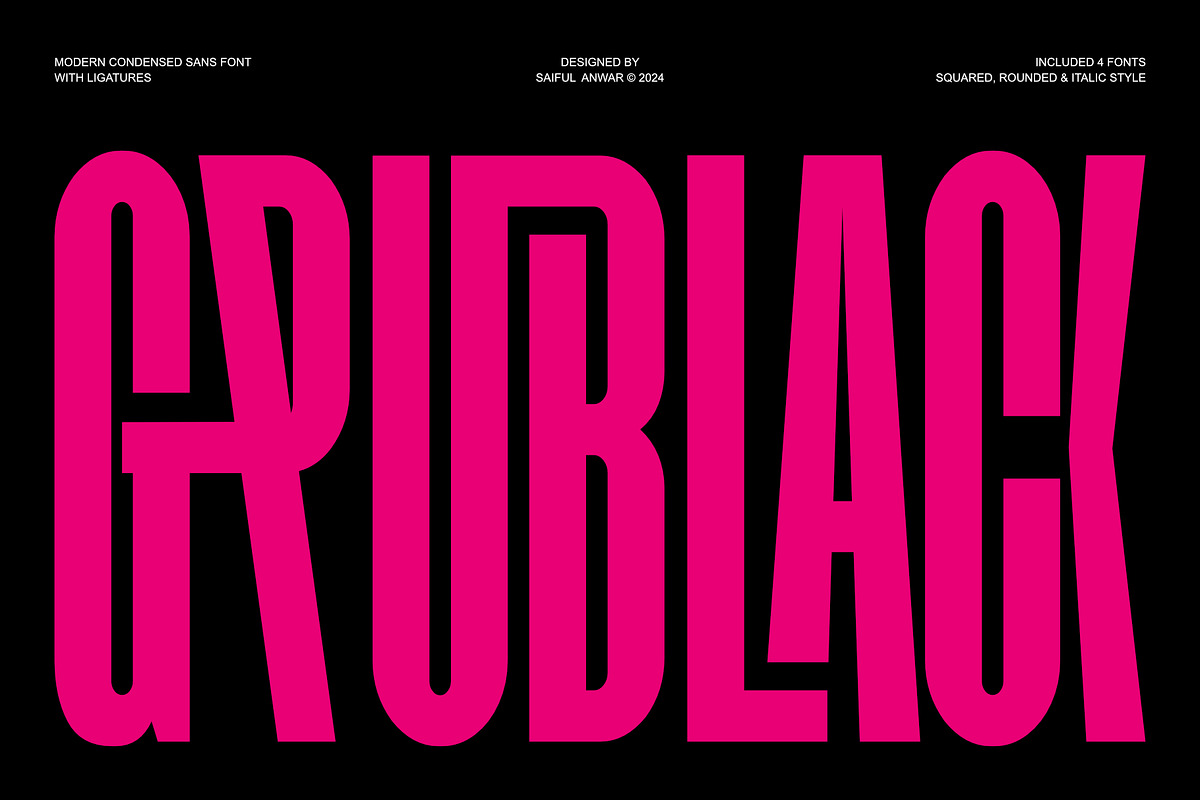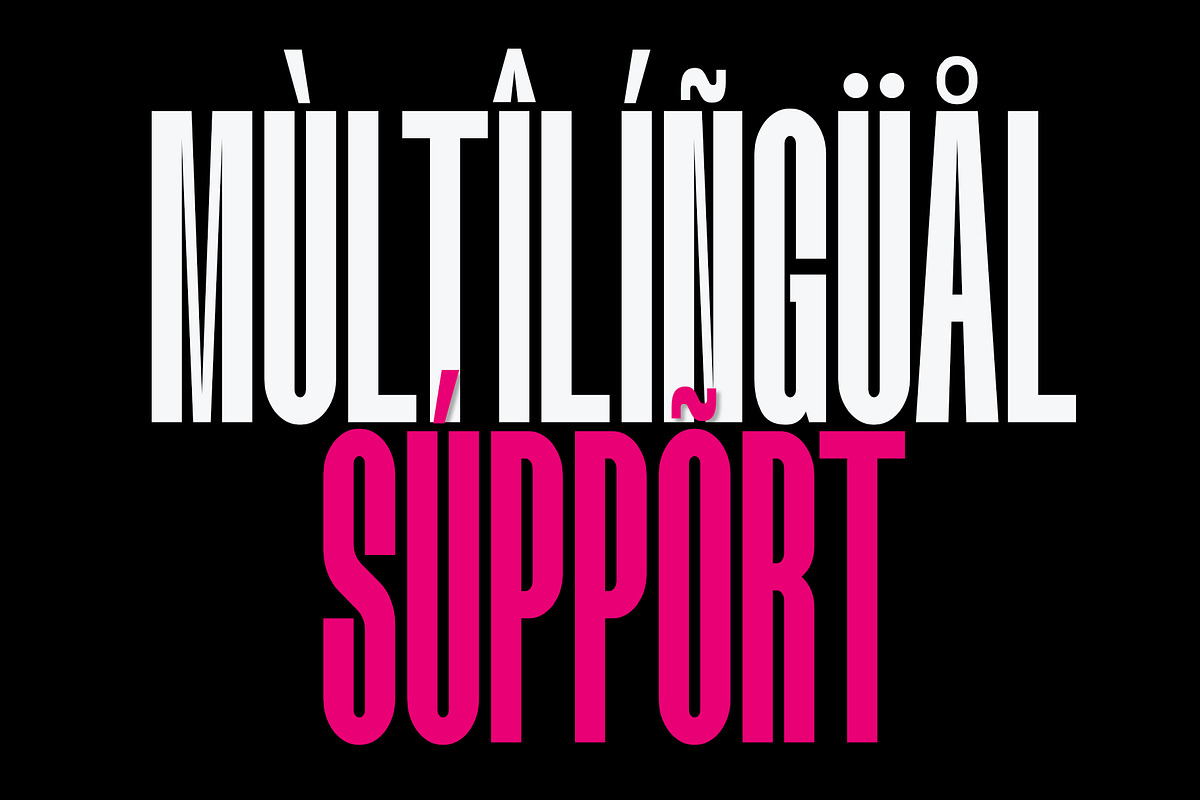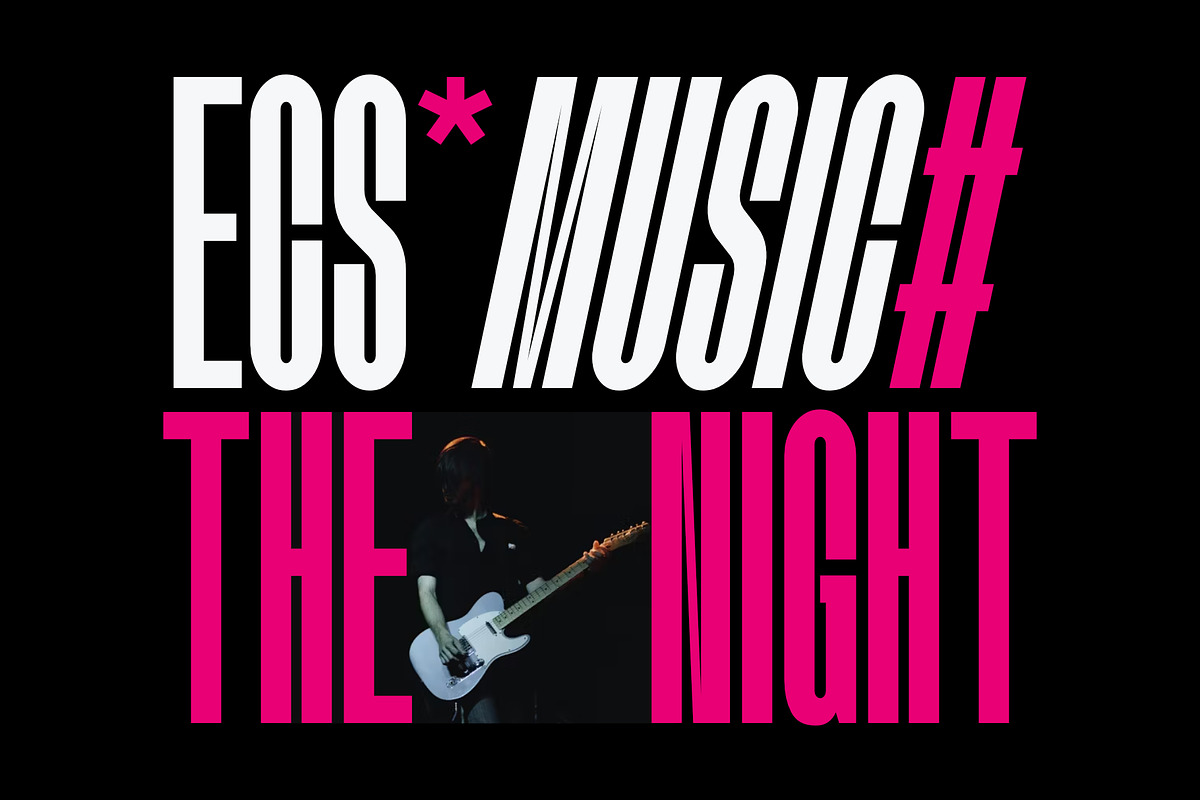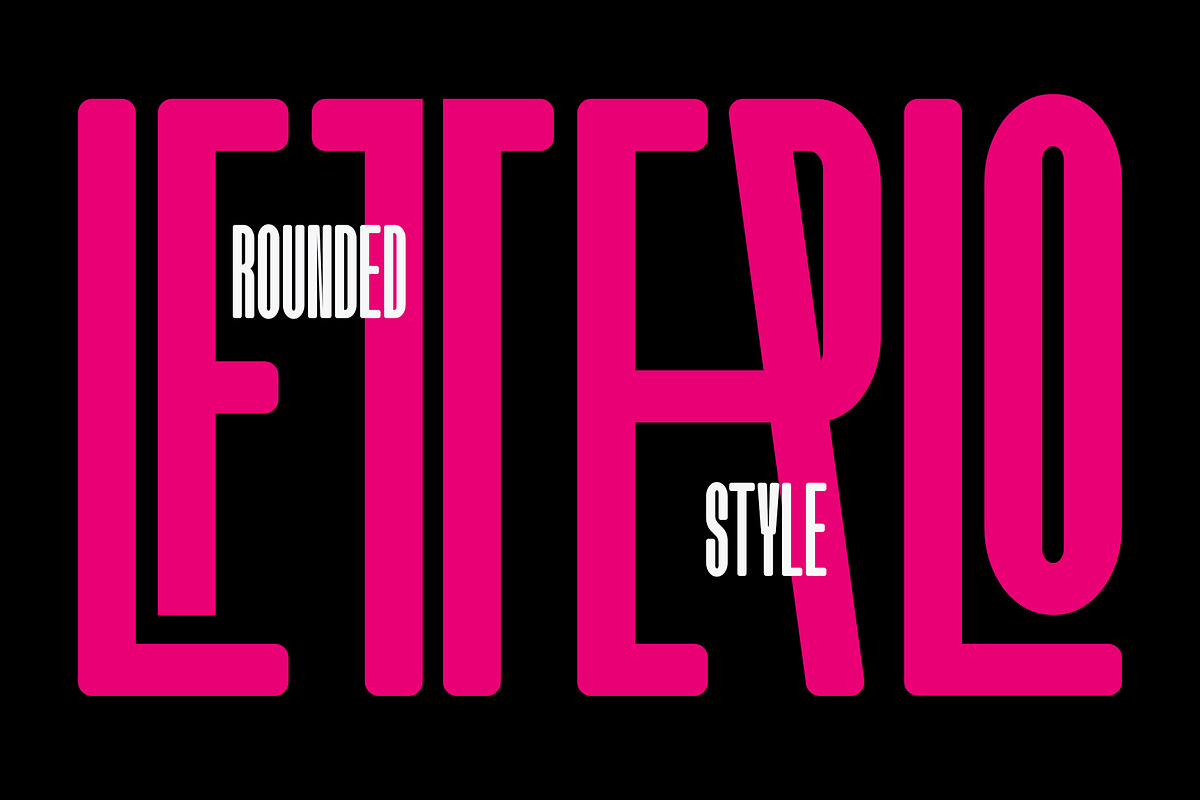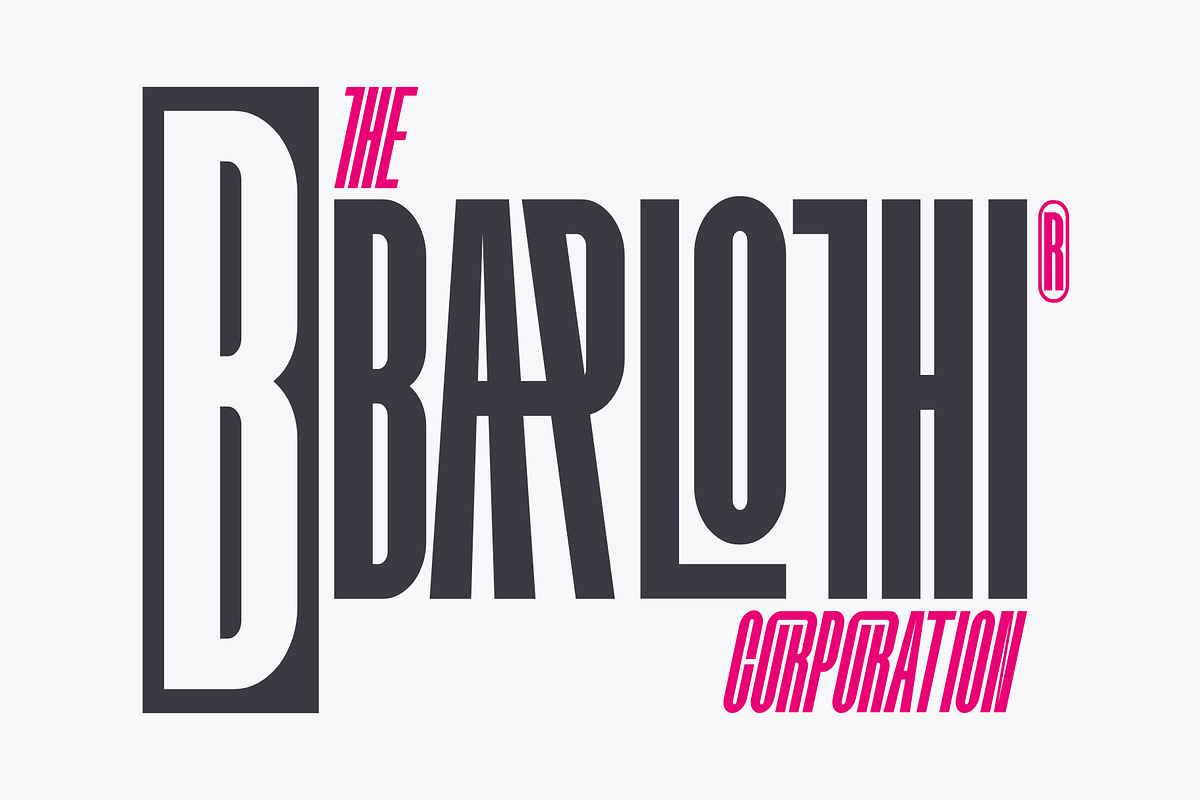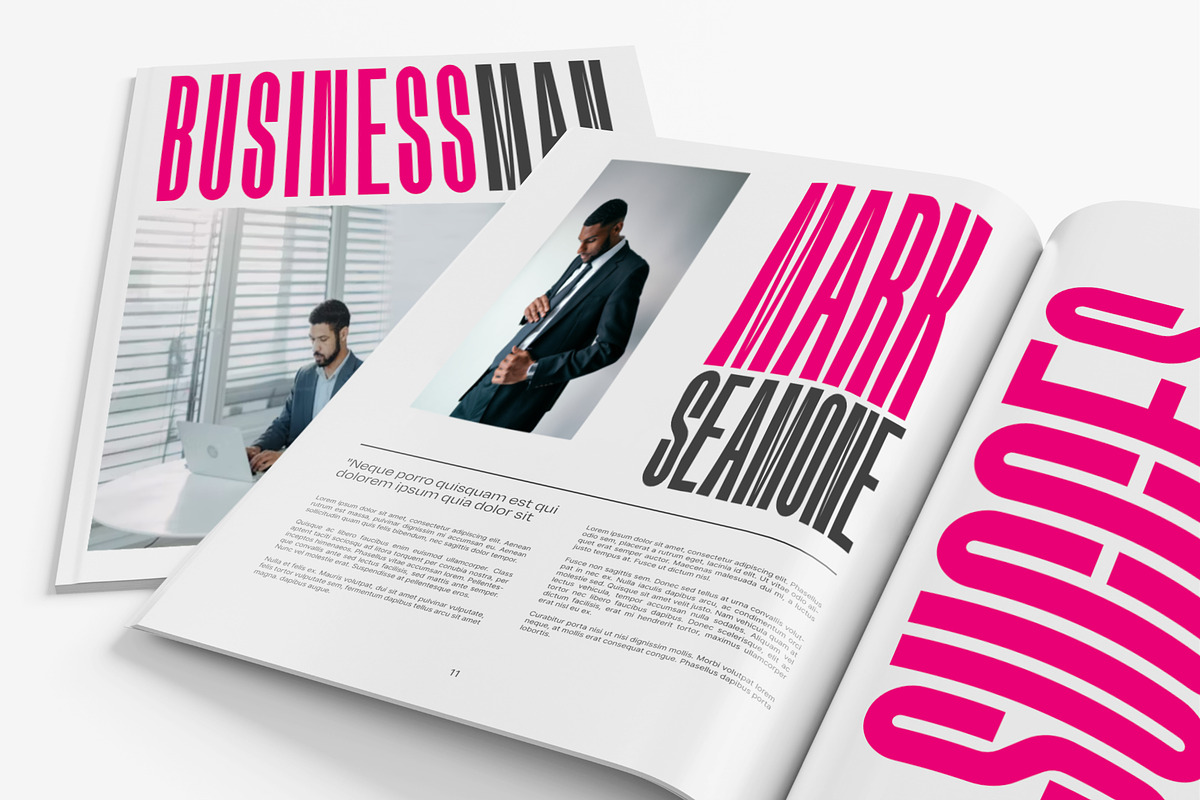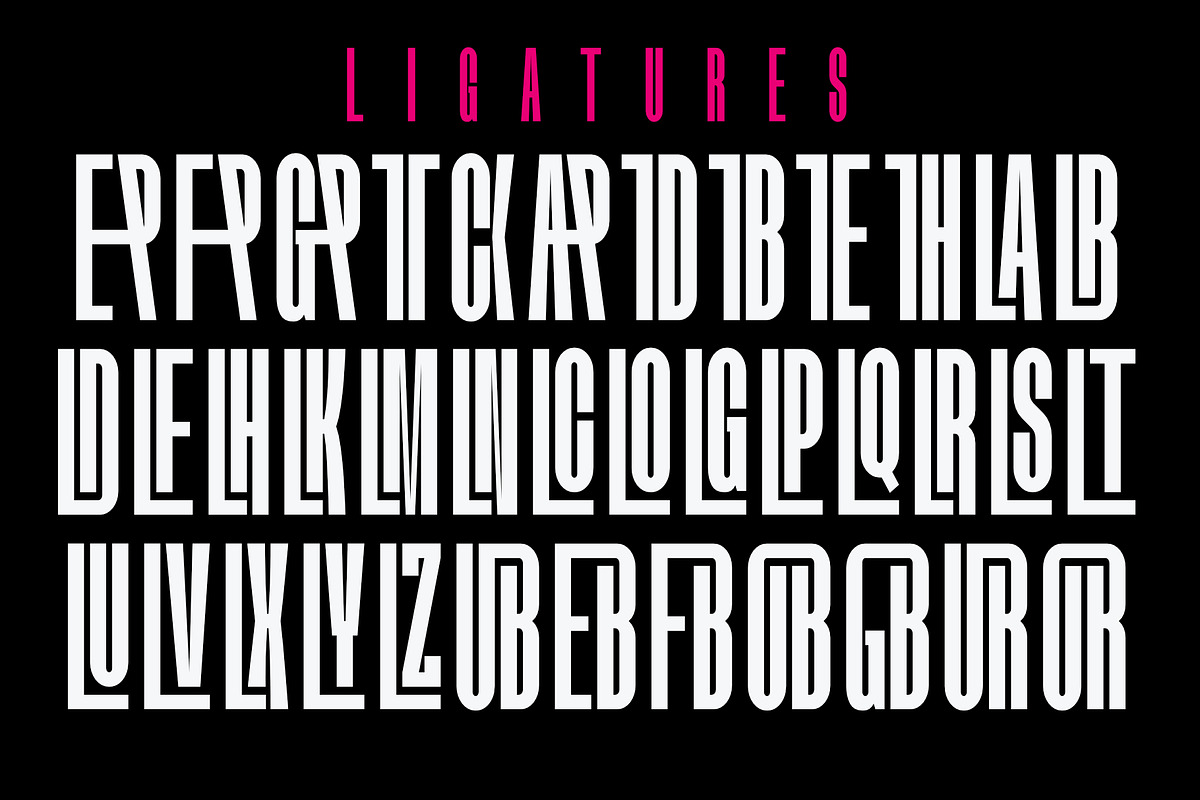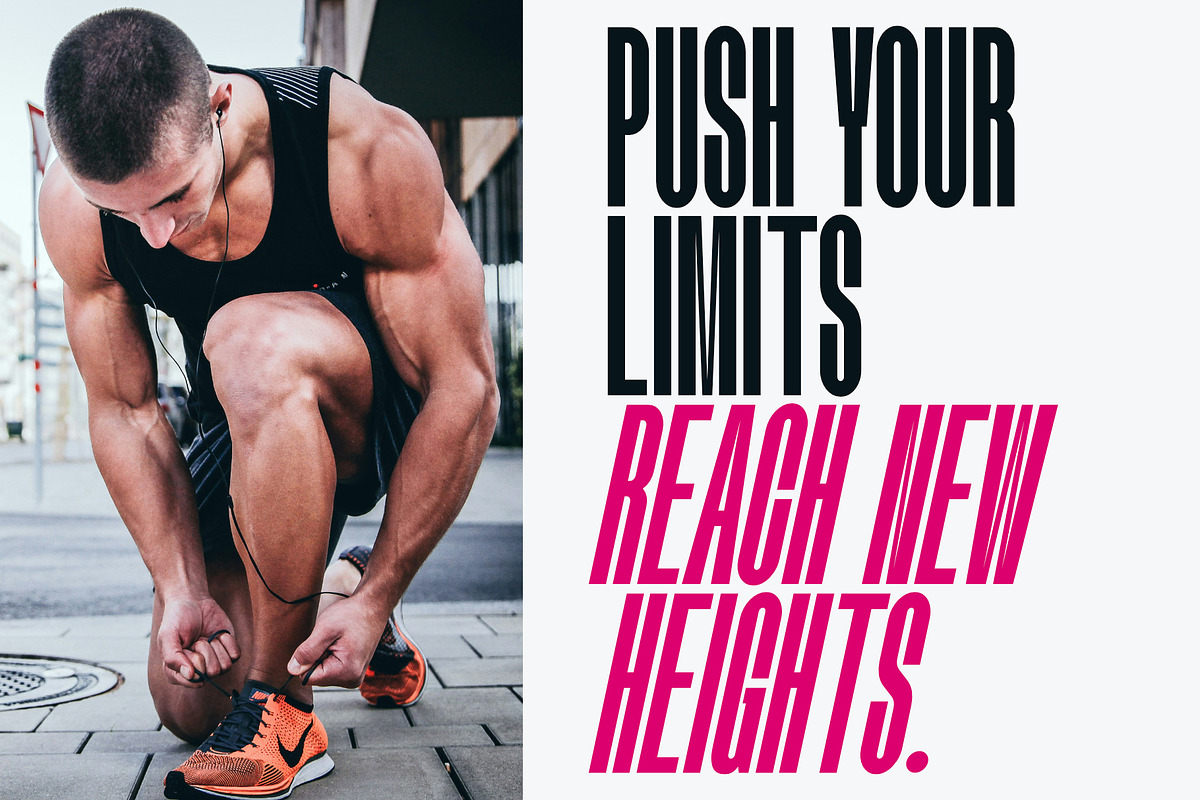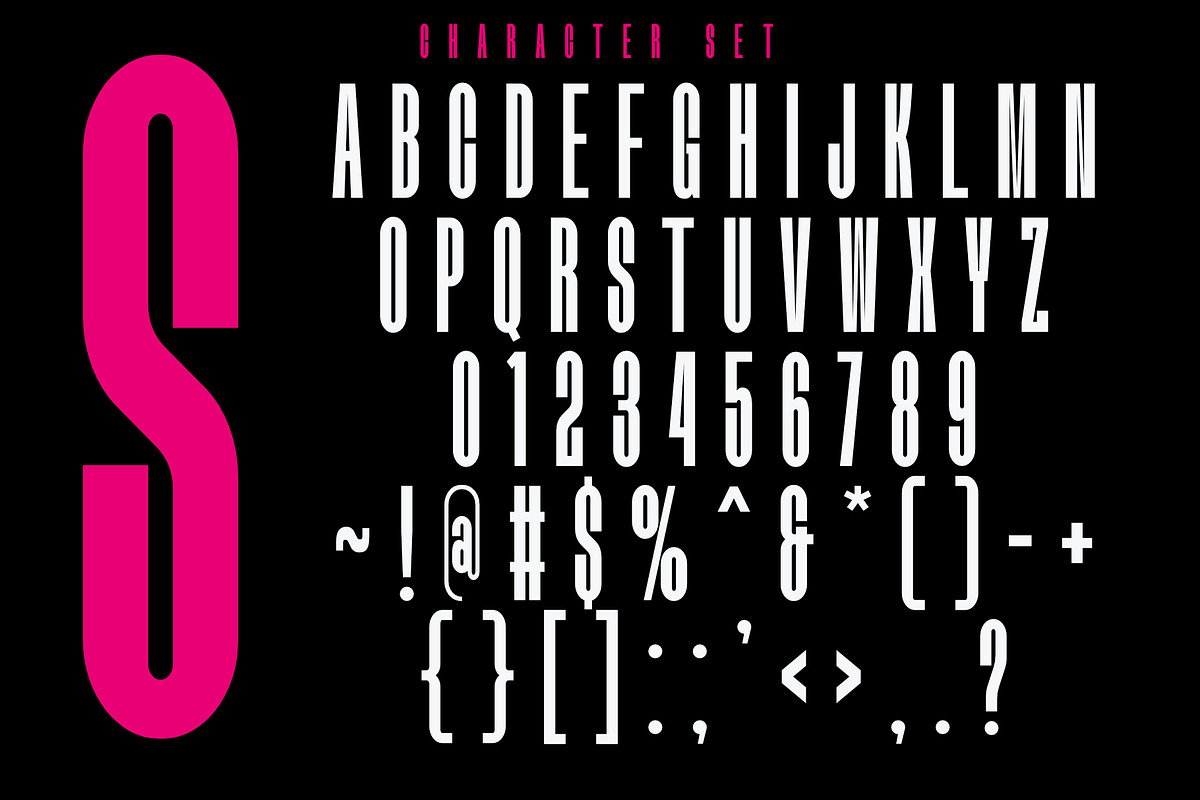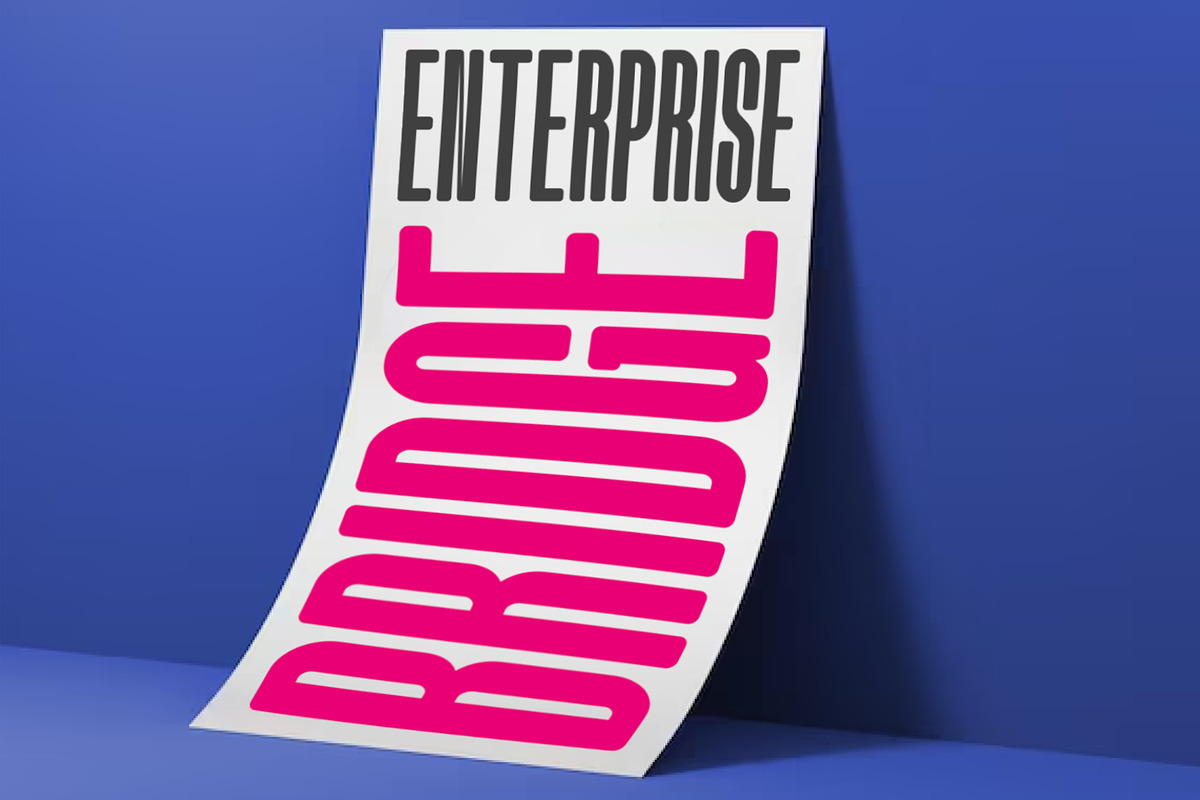
Grublack - Modern Condensed Sans
Introducing Grublack: A Modern Condensed Sans Font of Exceptional Typographic Excellence Grublack is a sleek, modern condensed sans font that sets a new standard in typography. Its contemporary design epitomizes elegance and functionality, enhanced by an extensive collection of meticulously crafted ligatures.
What truly sets Grublack apart is its vast collection of expertly designed ligatures. With a wealth of ligatures at your disposal, Grublack allows you to create seamless connections between characters, infusing your typography with a sense of fluidity and artistry. These ligatures add sophistication, elevating your designs and captivating viewers with their visual allure.
Grublack is a versatile font suitable for a myriad of design applications, including editorial layouts, branding materials, advertising campaigns, and digital interfaces. Its modern condensed sans style exudes professionalism and contemporary aesthetics, making it the perfect choice for projects demanding a refined and sleek visual identity.
Whether you're aiming for a minimalistic, high-tech, or cutting-edge look, Grublack provides the ideal canvas for your creativity. Its modern condensed form, coupled with a plethora of ligatures, empowers you to create captivating and memorable designs that stand out from the crowd.
Grublack Features:
- A full set of uppercase
- Multilingual language support
- OpenType Features
- Condensed Style
- Unique Ligatures